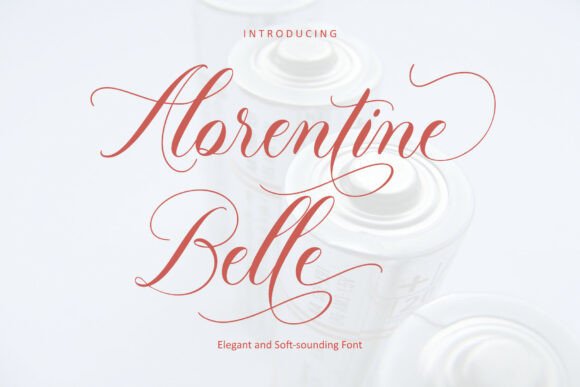
Alorentine Belle Font: Elevate Your Design with Luxurious Elegance
In the world of typography, few fonts manage to convey the essence of luxury and sophistication as effortlessly as Alorentine Belle. This exquisite script font is designed to add a touch of class and refinement to any design project, making it a perfect choice for those seeking to make a lasting impression. With its intricate swirls and delicate curves, Alorentine Belle is not just a font; it’s an experience.
Key Features of Alorentine Belle Font
- Elegant Script Design: Alorentine Belle boasts an elegant script design that exudes luxury and refinement. Its fluid strokes and graceful curves make it perfect for high-end branding, wedding invitations, and upscale events.
- Intricate Swirls and Curves: The font’s intricate swirls and delicate curves add a touch of sophistication to any design project. These details are meticulously crafted to ensure that every letter and word looks stunning.
- Versatile Usage: Whether you’re working on a luxury brand’s logo, a wedding invitation, or an upscale event’s marketing materials, Alorentine Belle is versatile enough to fit any project that requires a touch of elegance.
- Premium Quality: As a premium font, Alorentine Belle is designed to meet the highest standards of typography. Its quality is evident in its clean lines, perfect kerning, and exceptional readability.
Perfect for High-End Projects
Alorentine Belle’s luxurious feel makes it an ideal choice for a variety of high-end projects. Here are some of the best uses for this elegant font:
- Branding and Logos: For luxury brands, a logo is more than just a symbol; it’s a statement of the brand’s values and identity. Alorentine Belle can help create a logo that exudes elegance and sophistication.
- Wedding Invitations: Make your wedding invitations unforgettable with Alorentine Belle. Its delicate and intricate design will set the tone for a classy and memorable wedding.
- UpScale Events: For events like galas, charity functions, or high-end product launches, Alorentine Belle can add a touch of luxury to your marketing materials, invitations, and signage.
- Packaging Design: Luxury products deserve packaging that matches their quality. Alorentine Belle can be used to create stunning packaging designs that stand out on store shelves.
Tips for Getting the Most Out of Alorentine Belle
To truly leverage the elegance of Alorentine Belle, consider the following tips:
- Pair with Simple Fonts: For maximum impact, pair Alorentine Belle with simpler, sans-serif fonts for body text. This contrast will highlight the elegance of the font.
- Use on High-Quality Backgrounds: The beauty of Alorentine Belle truly shines on high-quality backgrounds. Use it on smooth, solid colors or subtle gradients for the best effect.
- Experiment with Colors: While Alorentine Belle looks stunning in classic black or gold, don’t be afraid to experiment with other colors. Pastels, deep jewel tones, and metallic colors can add a unique twist to your designs.
- Pay Attention to Size: For maximum impact, use Alorentine Belle in larger sizes where its intricate details can be fully appreciated. For body text or smaller applications, consider simplifying the design or using a font with more straightforward lines.
Alorentine Belle is more than just a font; it’s a statement of luxury and elegance. Its intricate swirls and delicate curves make it perfect for high-end branding, wedding invitations, upscale events, and any project that demands sophistication. By incorporating Alorentine Belle into your design projects, you’re not just choosing a font; you’re elevating the entire aesthetic experience.
Whether you’re a designer looking for a luxurious touch for your client’s branding or an event planner seeking to create unforgettable invitations, Alorentine Belle is sure to exceed your expectations. With its premium quality and versatile usage, this elegant script font is a valuable addition to any designer’s toolkit.